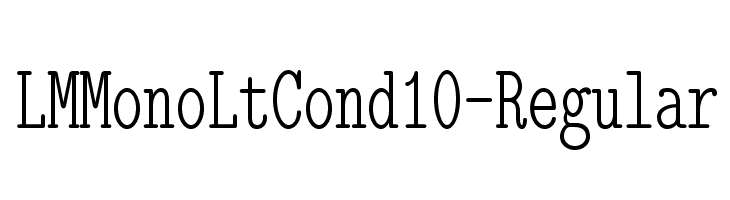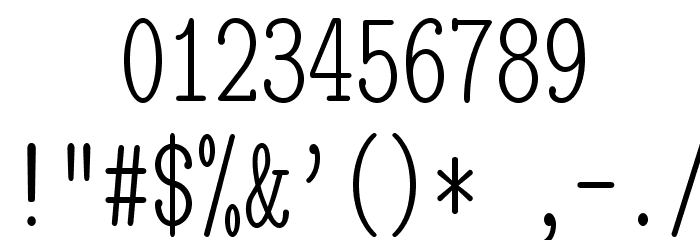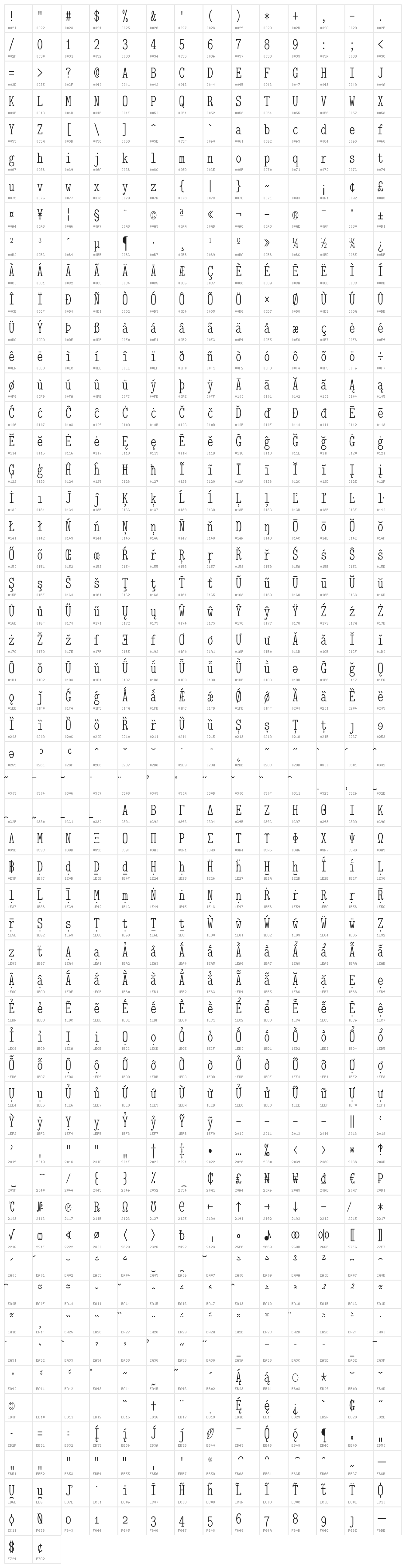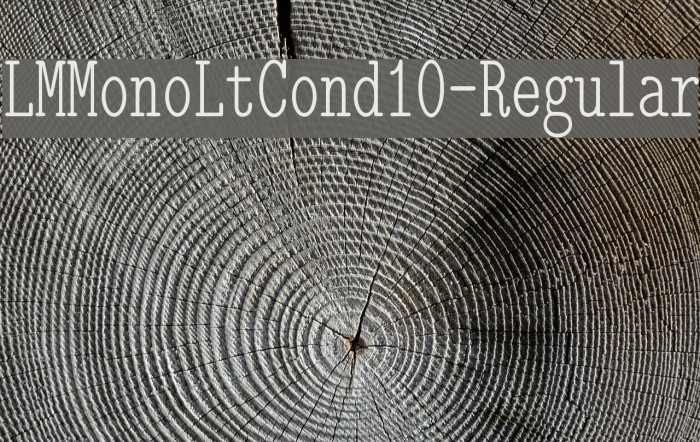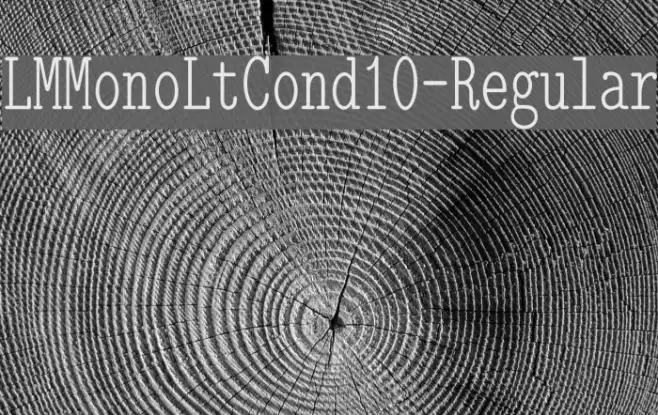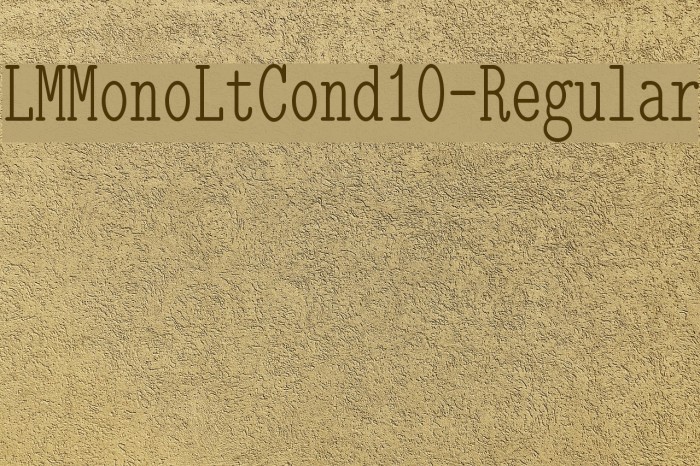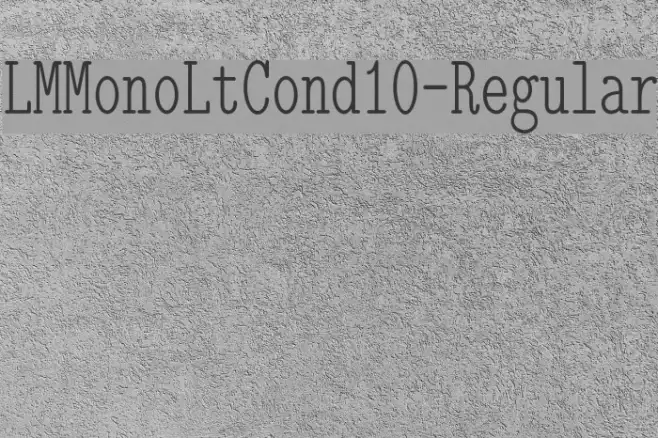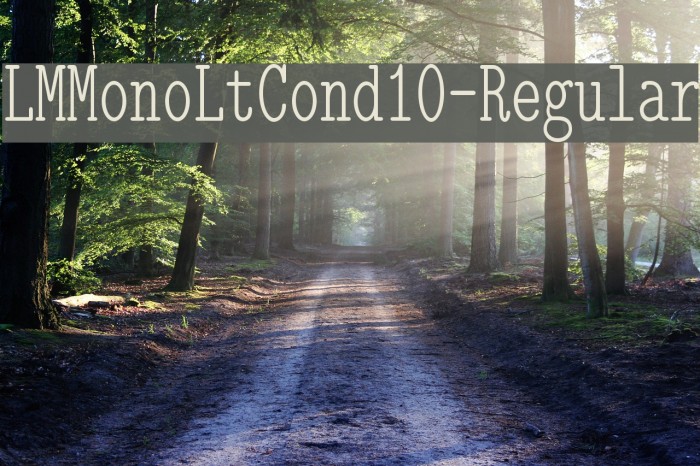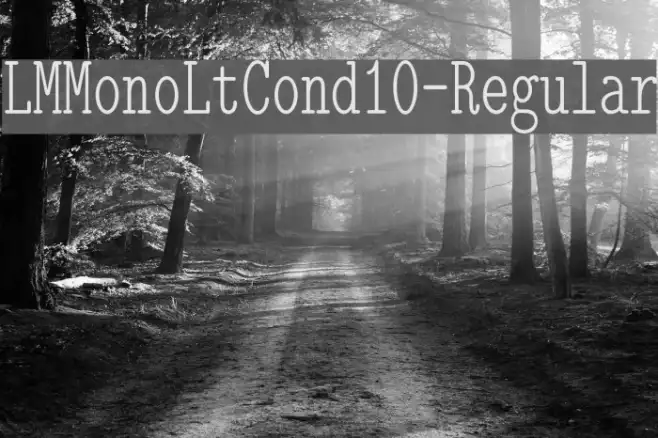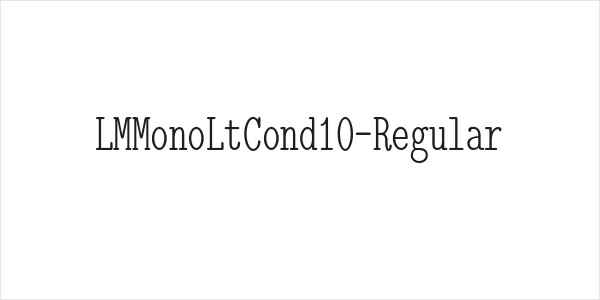
LMMonoLtCond10-Regular Font
LMMonoLtCond10-Regular Description
This typeface features a monospaced design with a light weight and condensed width, offering a clean and structured appearance. The characters are evenly spaced, providing a uniform look that is ideal for code and tabular data. The font includes a full set of uppercase and lowercase letters, numerals, and a variety of special characters. The strokes are consistent in thickness, contributing to a low contrast style that enhances readability. Its simplicity and clarity make it suitable for technical and professional settings.
| Use Case | Code, Technical documentation, Data tables |
| Proposed Projects | Perfect for coding environments, technical documentation, and data tables. |